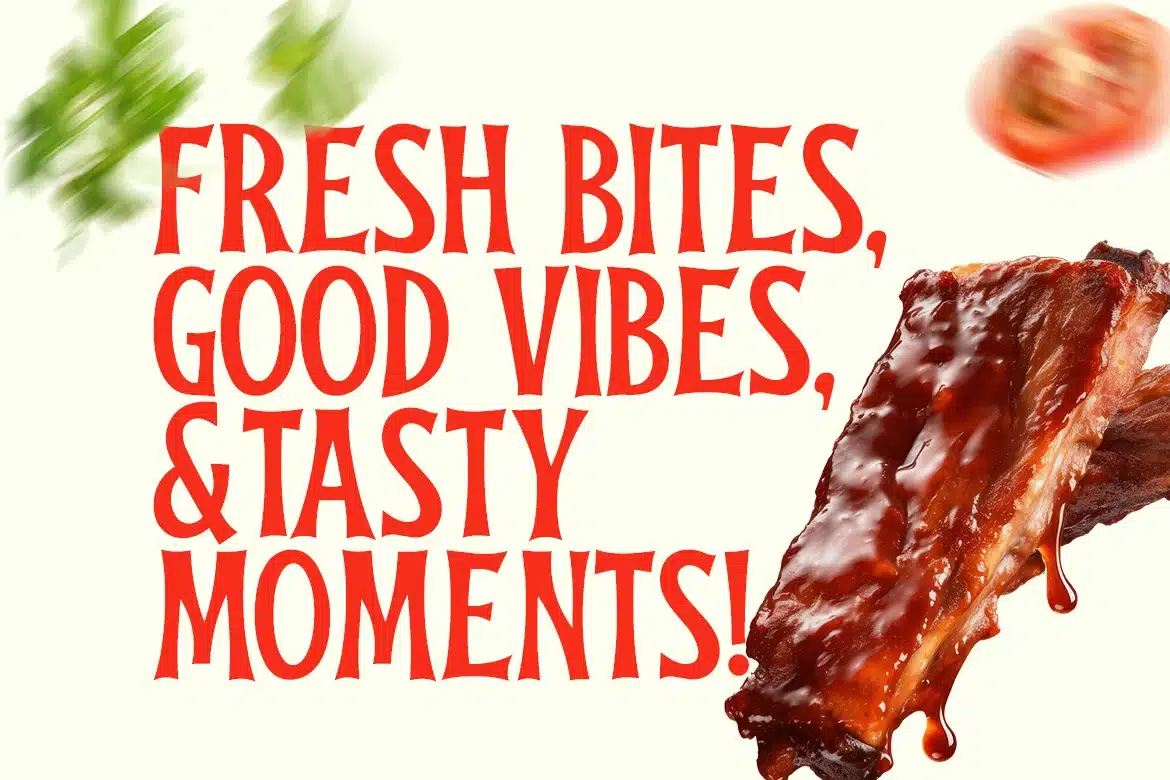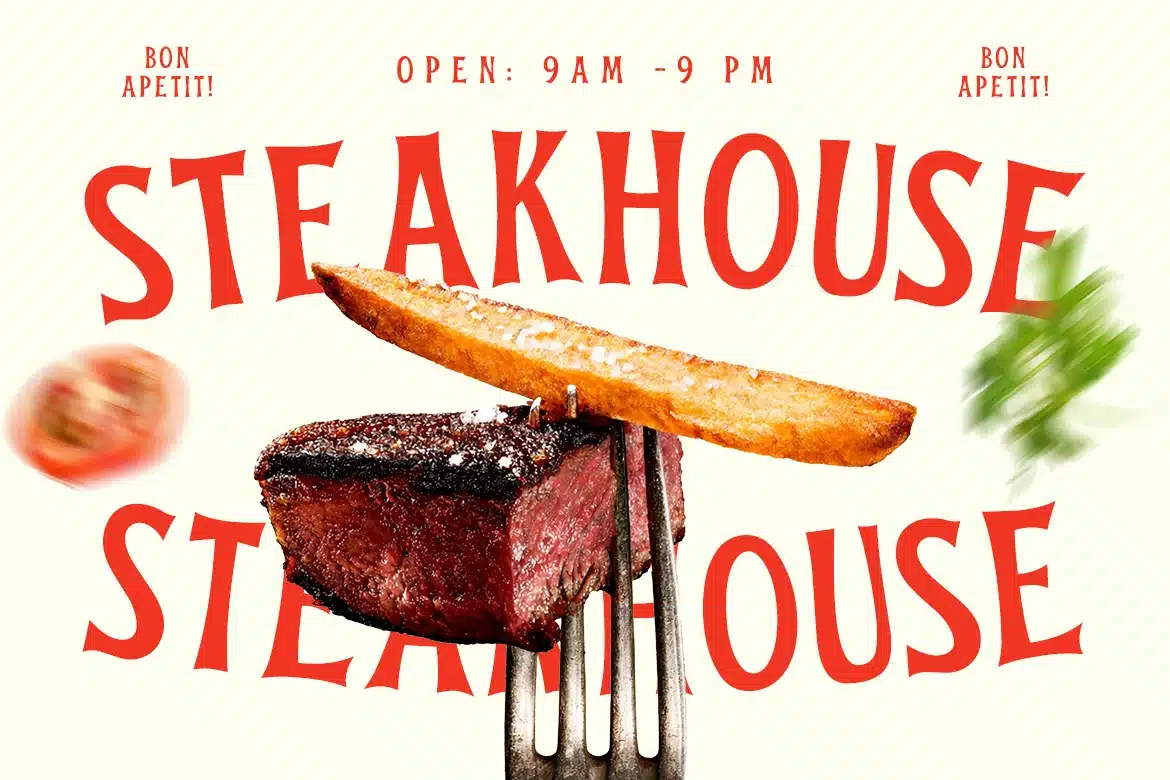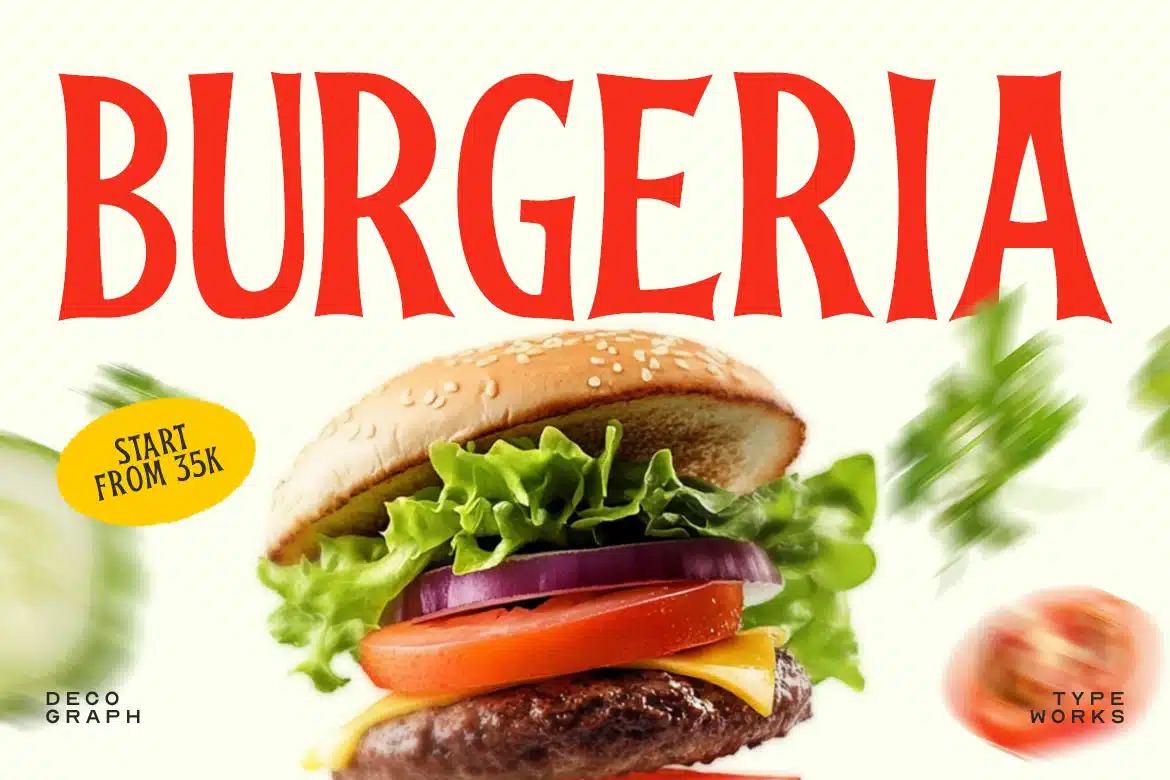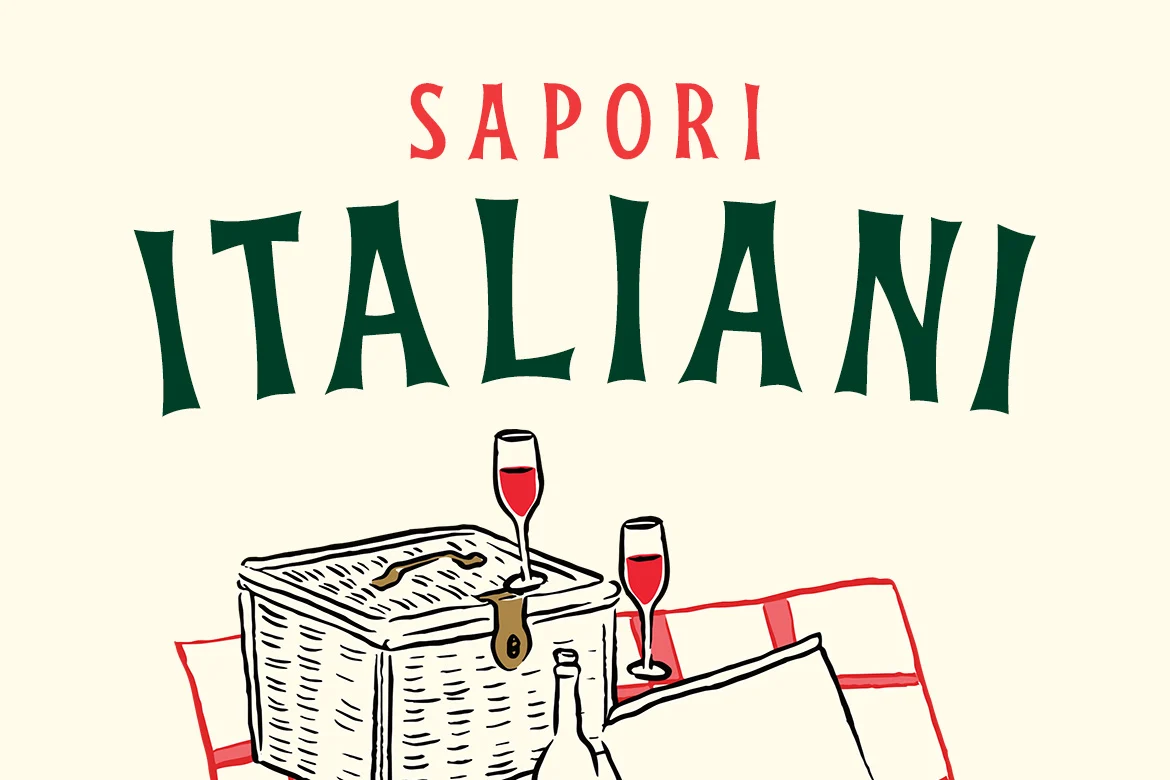
Delizzio Pasta – Food Vintage Display Font
Delizzio Pasta Food Vintage Display Font is a deliciously styled typeface inspired by rich Italian cuisine and classic food branding. Its elegant curves and slightly vintage character create a warm and appetizing look that feels authentic, flavorful, and inviting. The balanced letterforms give it a premium yet friendly personality perfect for culinary visuals.
Best Used For:
Restaurant Branding
Food Menus
Cafe Design
Food Packaging
Italian Restaurant Identity
Menu Design
Logo Design
Food Promotions